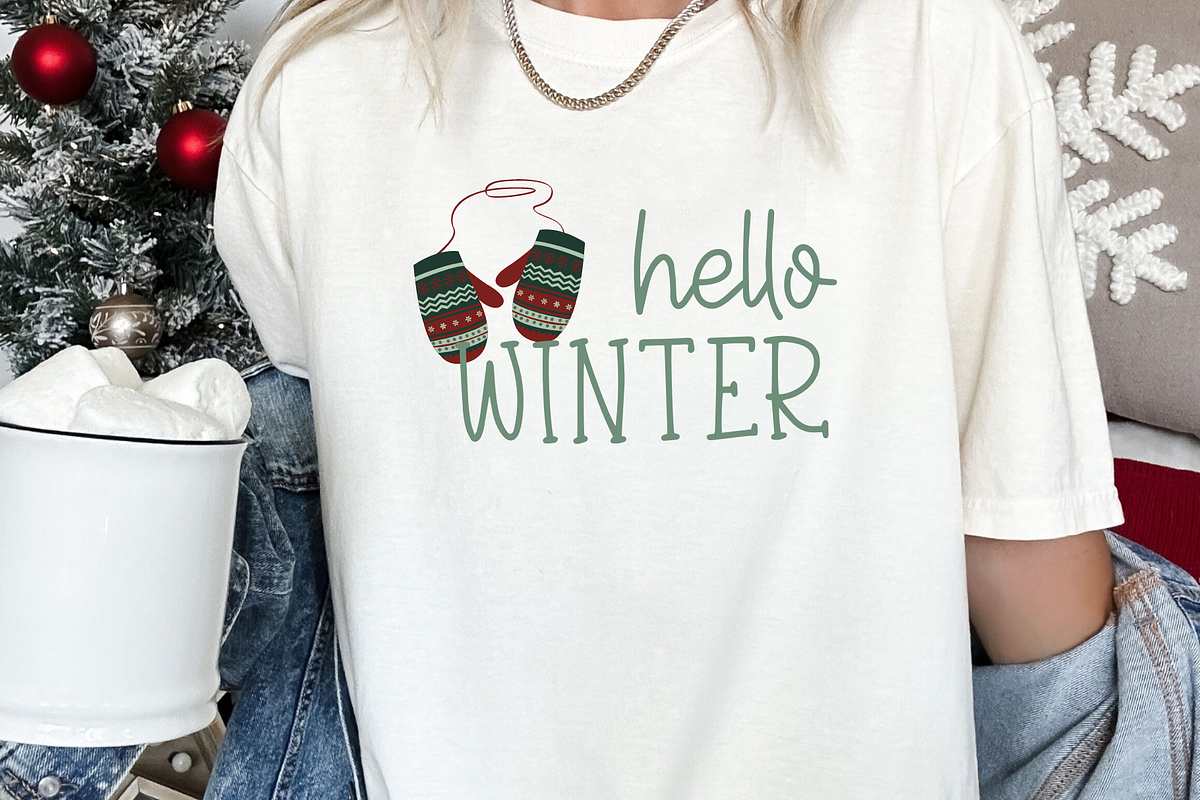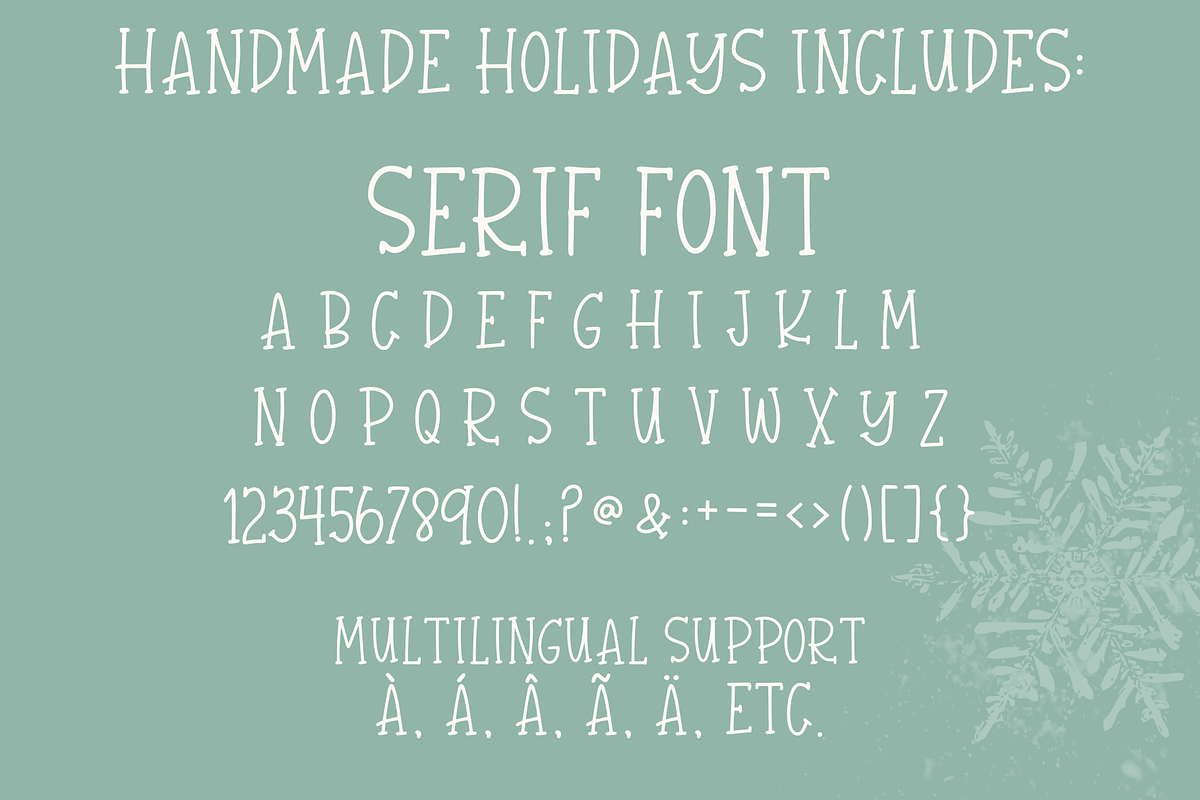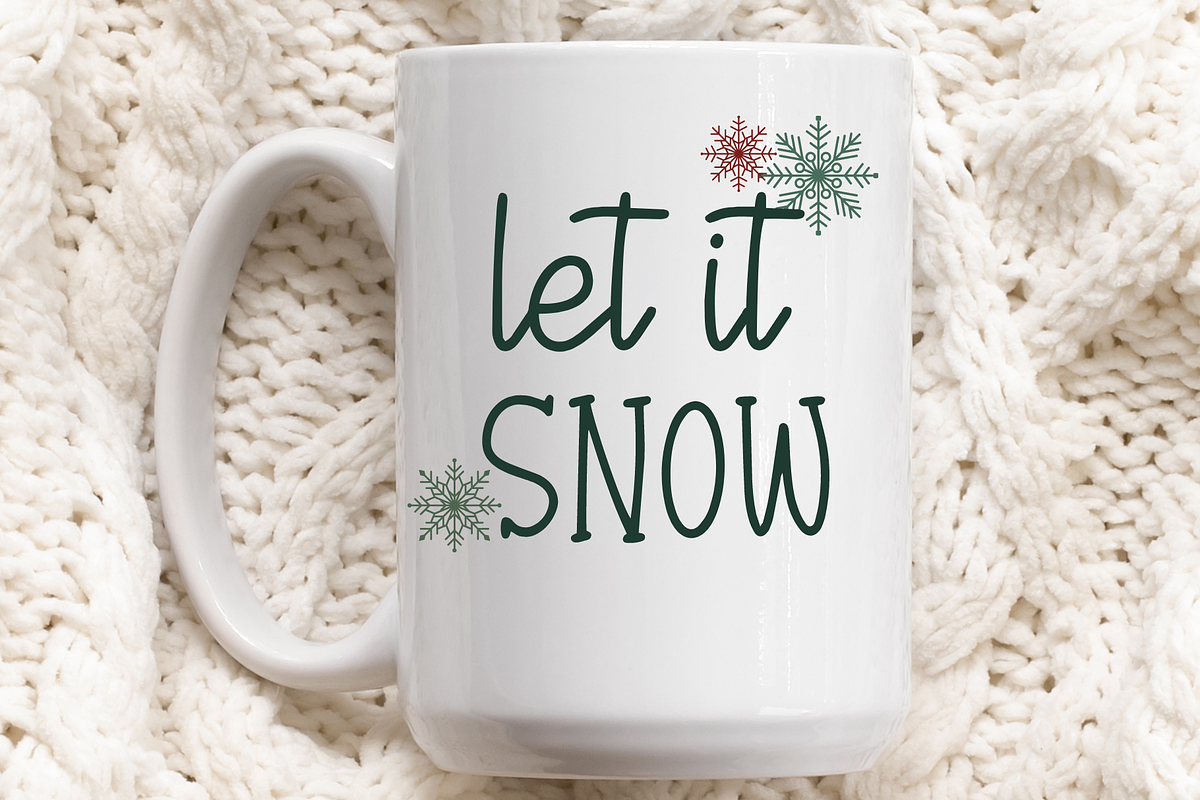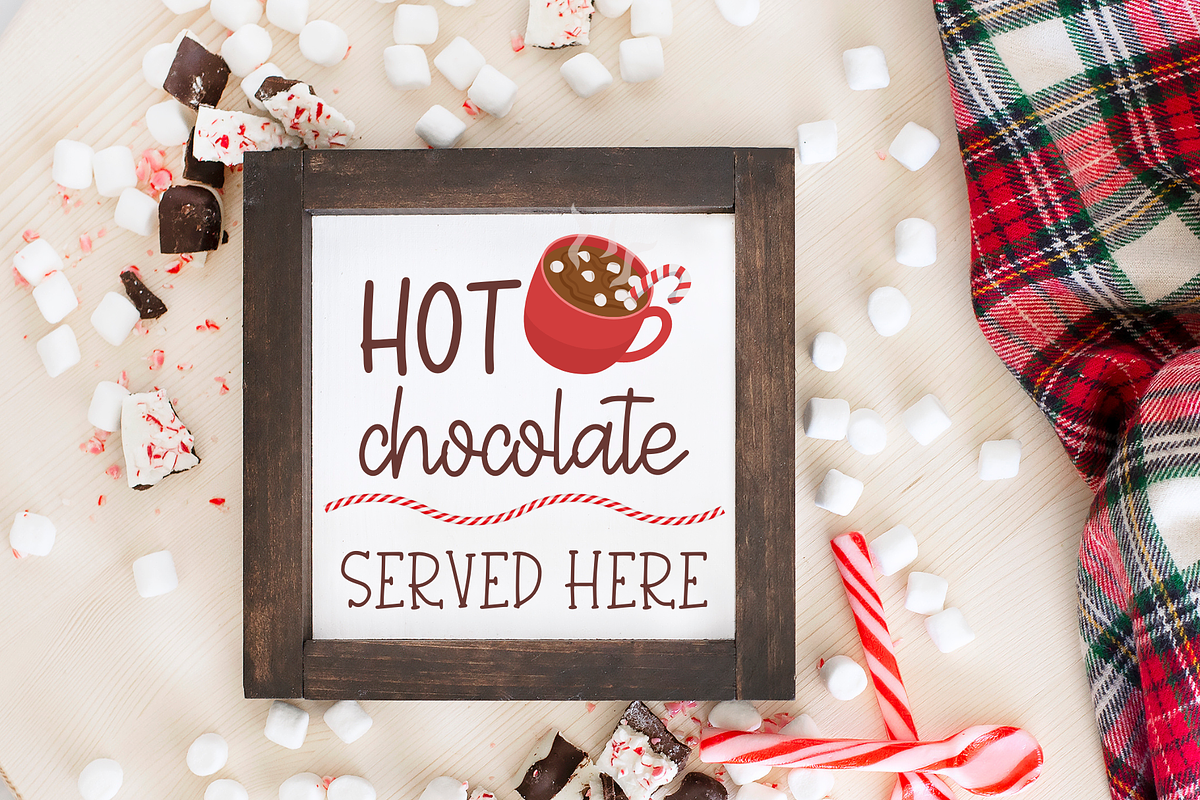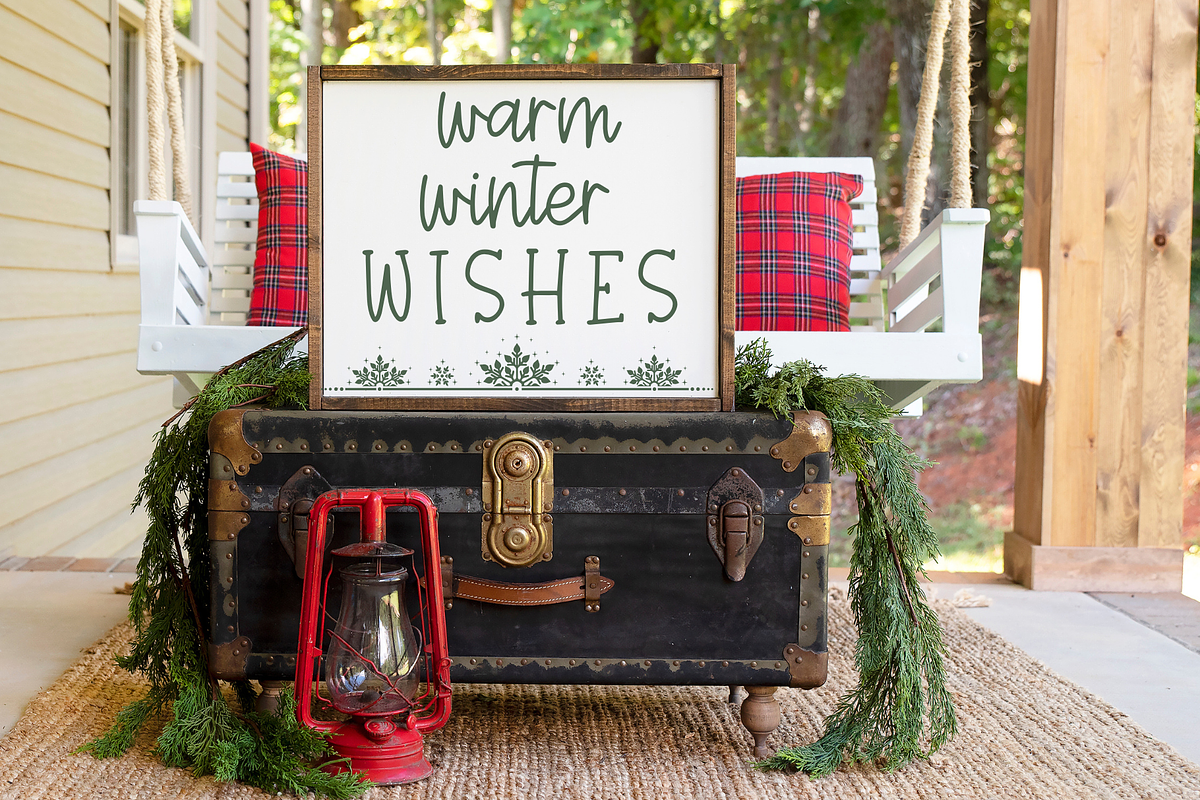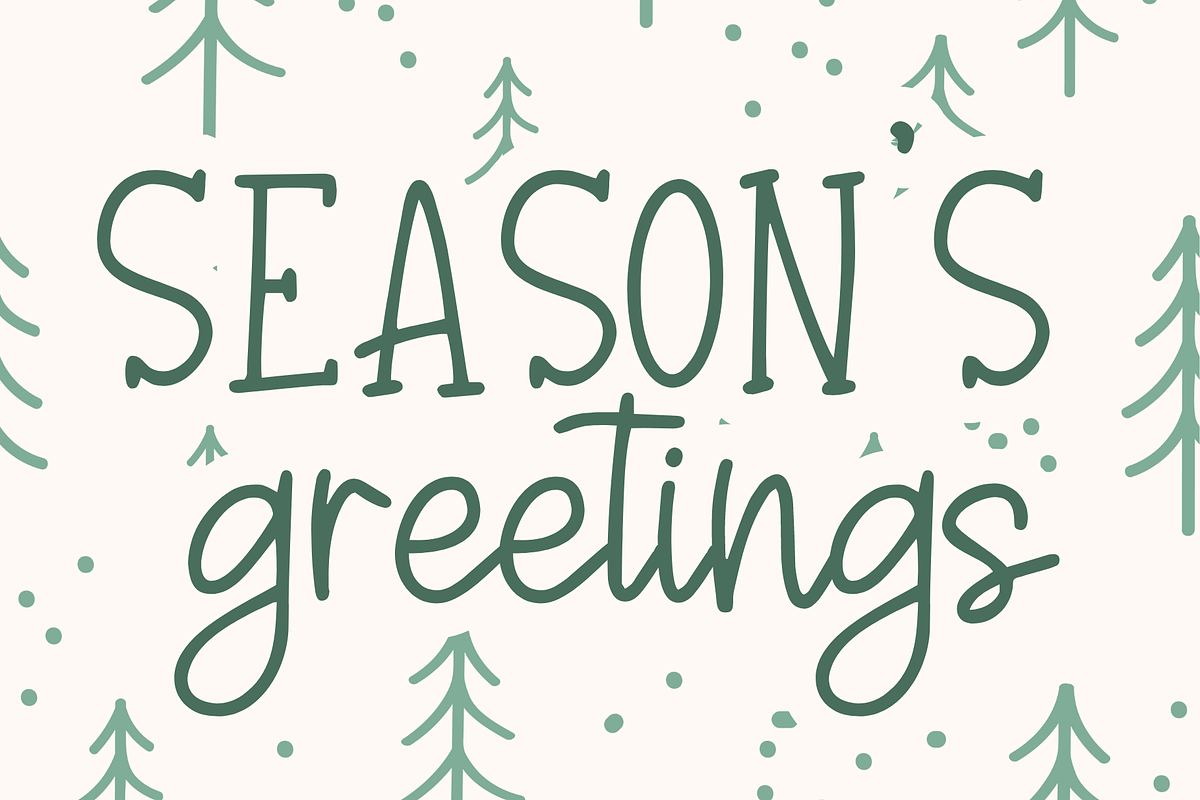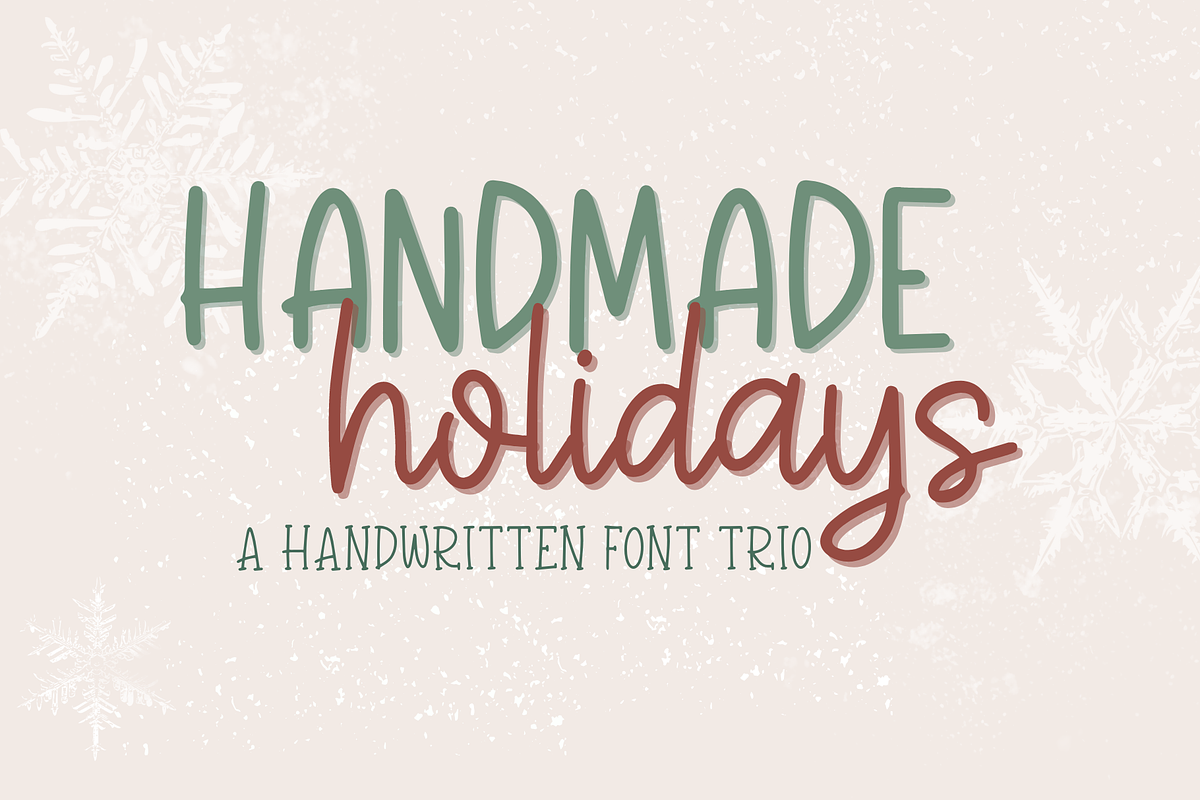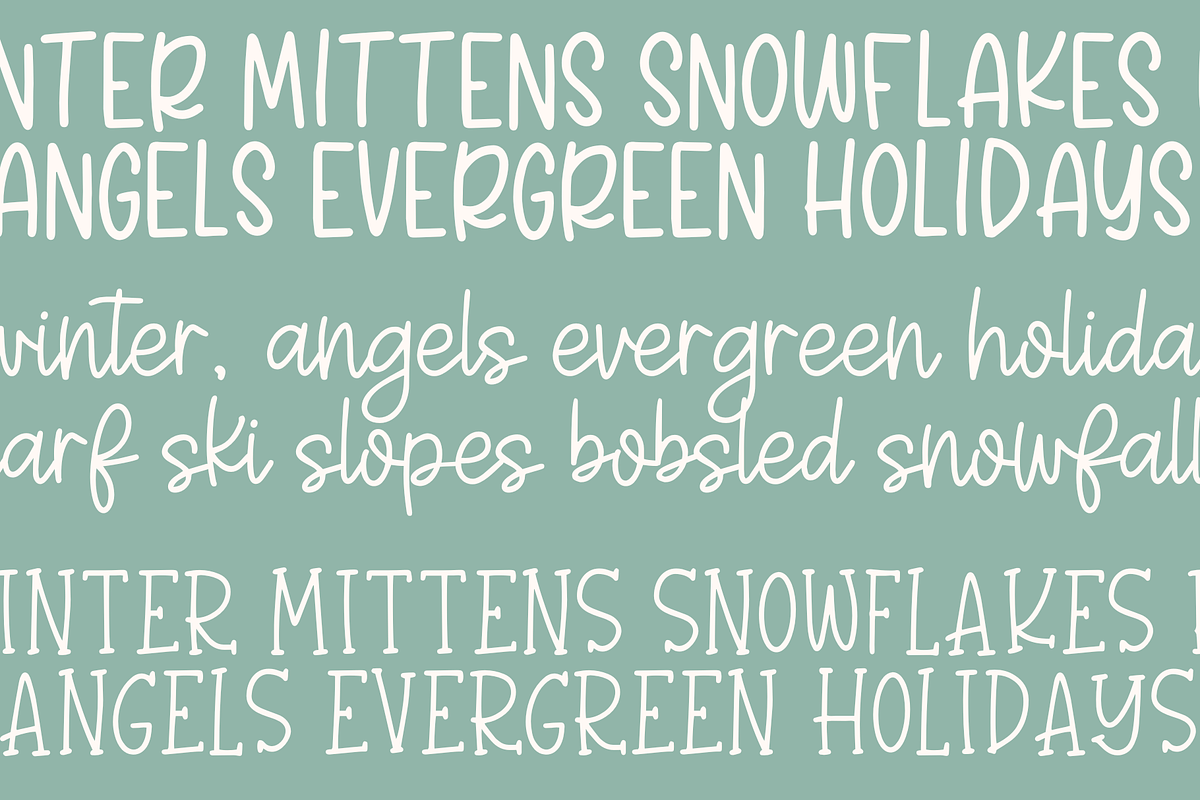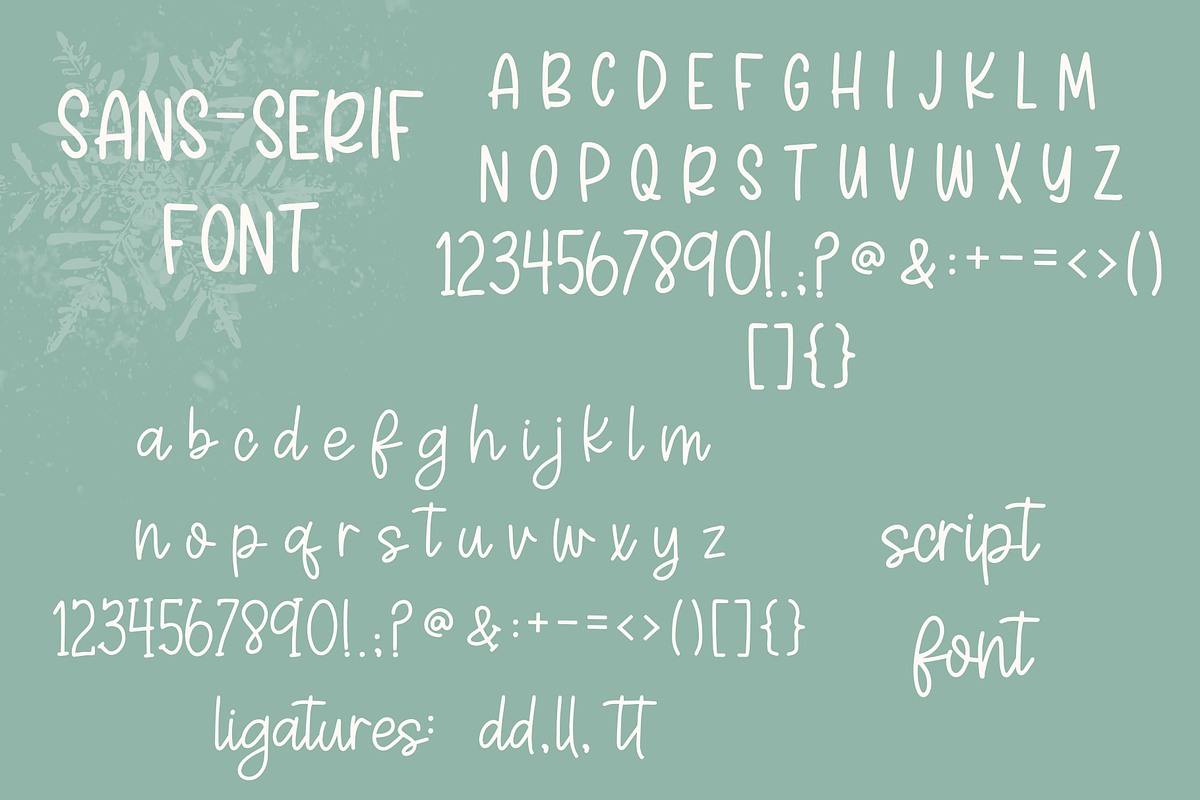
Handmade Holidays Font Trio
Handmade Holidays is a handwritten font trio featuring a serif font, a sans-serif font, and a cute handwritten script font - a charming additions to your creative projects! Our handwriting font is compatible with Cricut SVGs, Goodnotes, Procreate, and many other programs. With its playful and fun handwriting style, it adds a touch of whimsy and personality to any project. Whether you're crafting christmas cards, scrapbooking, or designing SVG files, this cute font will bring your creations to life. Get ready to impress with our amazing Cricut font collection and unlock endless possibilities for your artistic endeavors!